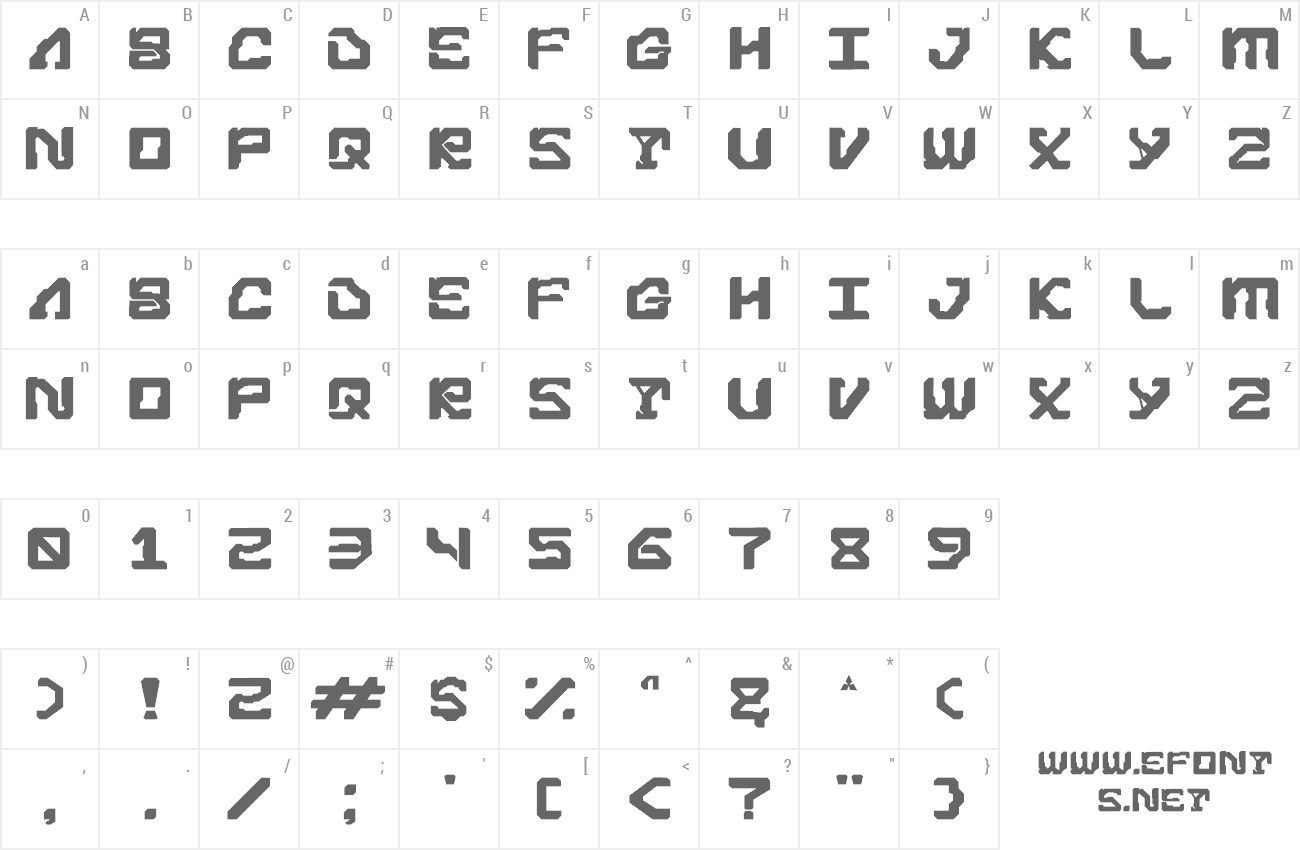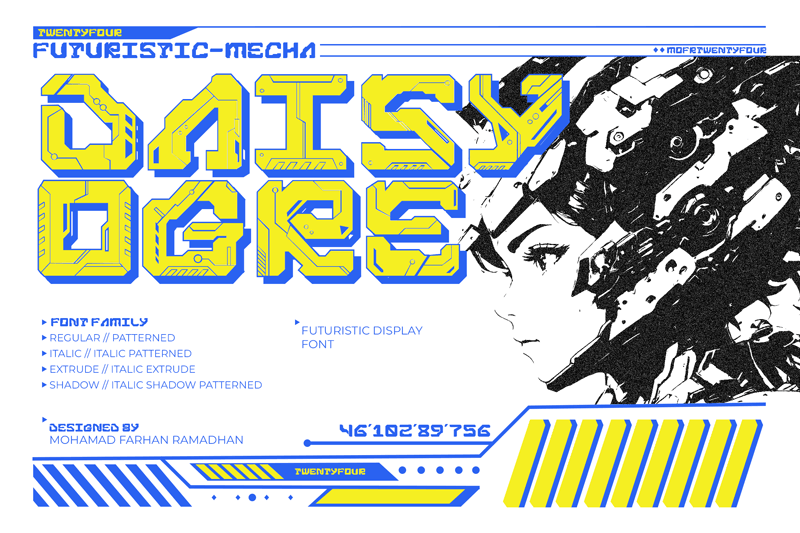
Preview and download Daisyogre Font. Created by Mohamad Farhan Ramadhan in Techno Sci-fi styles with Free for personal use license.
Introducing Daisyogre: A bold, futuristic, and monospaced typeface inspired by anime Synduality: Noir. This modern font boasts 8 unique styles, evoking the essence of machinery and mecha aesthetics. Perfect for posters, marketing materials, titles, T-shirt designs, games, and art crafts, Daisyogre brings a cutting-edge appeal to your creative projects. Elevate your designs with the power of mechanical elegance. _________________________________________________________ By installing or using this font, you are agree to the Product Usage Agreement: - This font is already ONLY REGULAR VERSION and ONLY for PERSONAL USE. NO COMMERCIAL USE ALLOWED! - Here is the link to purchase COMMERCIAL LICENSE: https://fontbundles.net/mofr24-work/2416150-cybergame - If you need a CUSTOM LICENSE or CORPORATE LICENSE please contact us at: mofr24.artwork@gmail.com - Any donation are very appreciated. Our Paypal account for donation : https://paypal.me/avieora Please visit our store for more amazing fonts : https://www.creativefabrica.com/ref/401336/ https://fontbundles.net/mofr24-work |